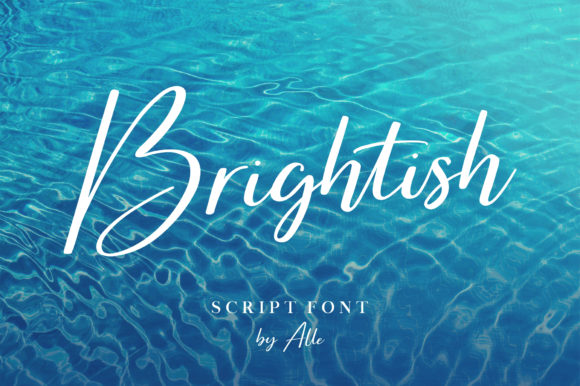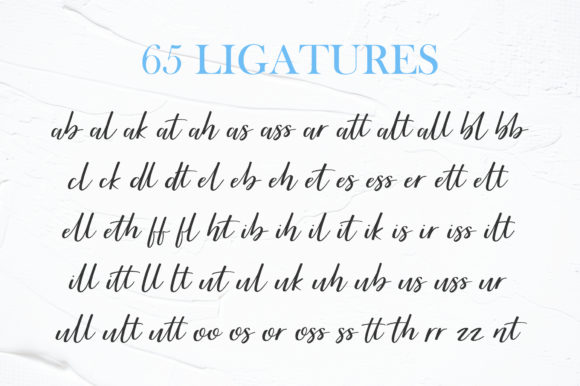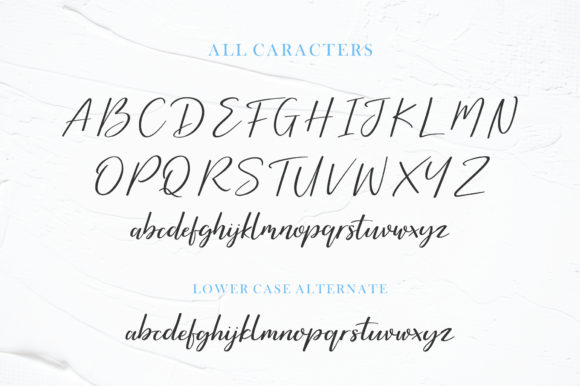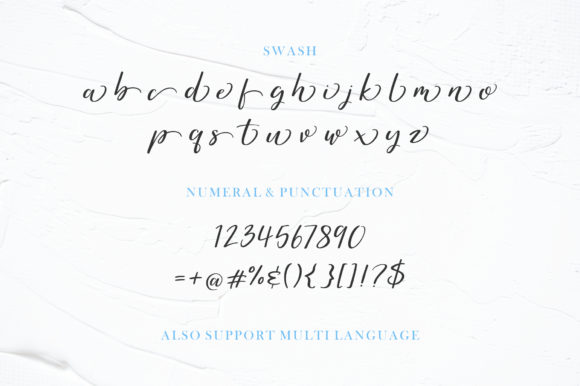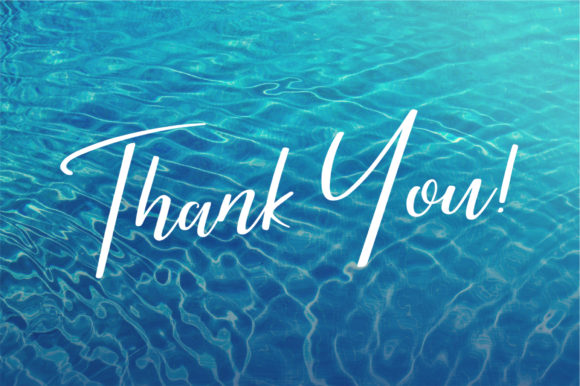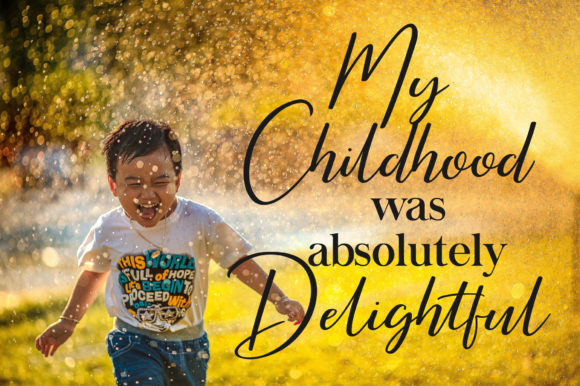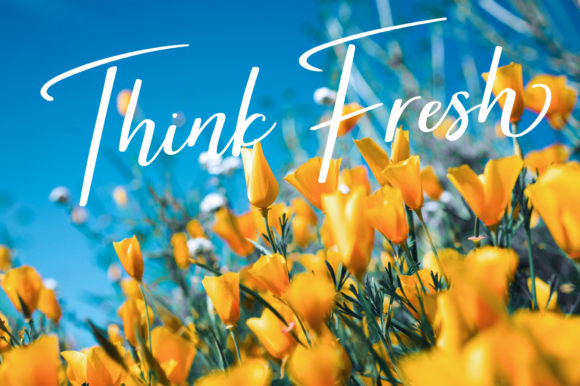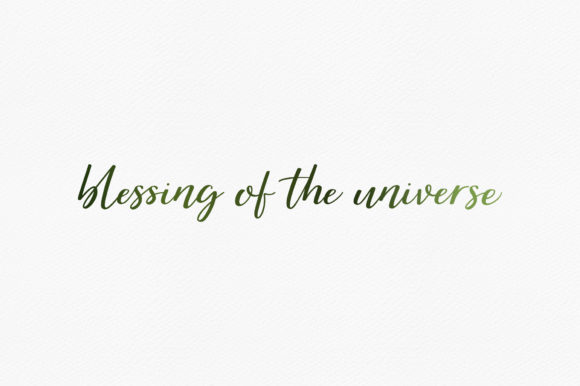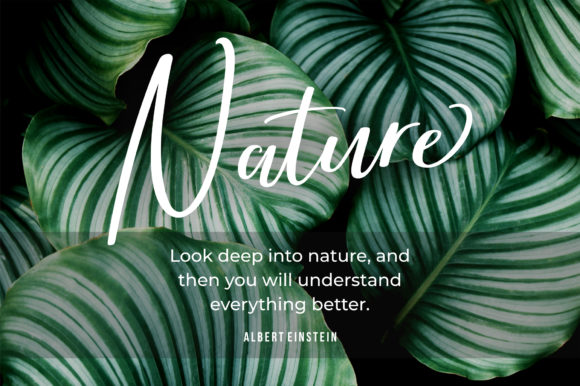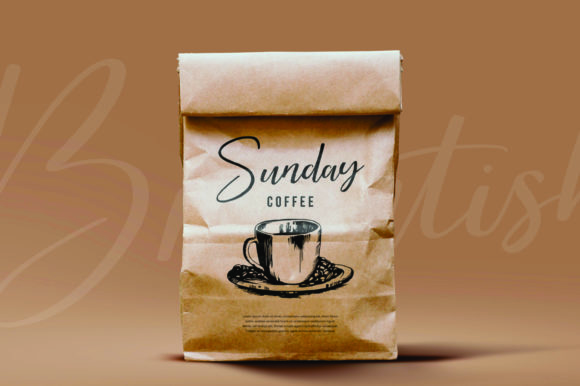
Brightish Font
About Brightish Font
The Brightish is a modern handmade script. It brings a natural impression of real handwriting.
It’s suitable for posters, packaging products, book covers, apparel, advertising, branding, invitations, and much more!